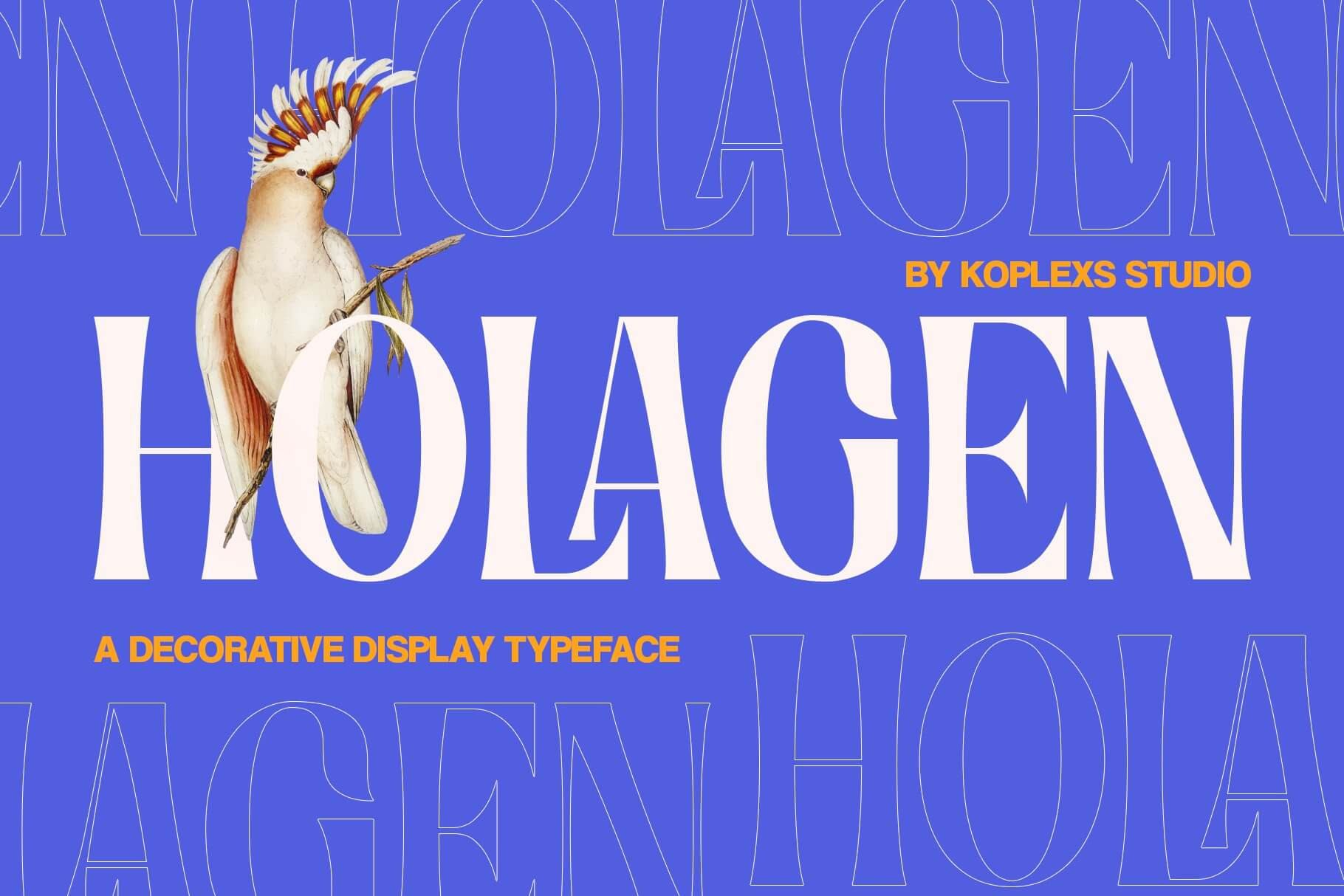
Holagen - A Decorative Display Font
HOLAGEN - Decorative display font, a versatile typeface that brings a touch of elegance and creativity to your designs. This unique font boasts a wide range of alternates and ligatures, allowing for endless customization and a personalized touch in every use. HOLAGEN is also multilingual, making it the perfect choice for global projects. Ideal for branding, logos, invitations, and social media graphics, this decorative display font enhances any creative endeavor with its sophisticated style and intricate details. Transform your design projects with HOLAGEN's distinctive charm and make a lasting impression.
HOLAGEN font is also looks elegant and will fit well in any design and very recommended for logo, crafts, posters, books, branding, quotes, print templates, packaging, invitations, product labels, advertising, wedding project and more. This font comes in uppercase, lowercase, with punctuation, symbols, numerals, and ligatures. This font is PUA encoded which means you can access all of the charming glyphs.